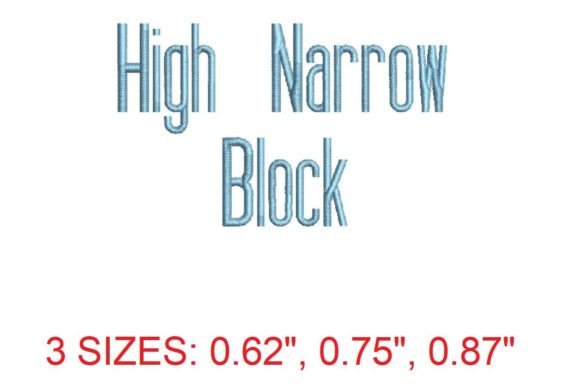
High Narrow Font: Elevating Embroidery with Precision and Style
In the ever-evolving world of embroidery design, the demand for fonts that offer both aesthetic appeal and technical precision has never been higher. Among the latest innovations to capture the attention of professionals and enthusiasts alike is the High Narrow Font. This unique font is not just a design tool—it’s a game-changer for anyone looking to create intricate, high-quality embroidery that stands out in a competitive market.
What Is High Narrow Font?
The High Narrow Font is specifically engineered for use in machine embroidery, offering a refined and elegant appearance that is ideal for monogramming, personalizing accessories, and creating home décor. Its narrow, block-style characters are designed to fit seamlessly into tight spaces while maintaining clarity and legibility. Whether you're working on a custom wedding piece or a boutique collection, this font ensures that every stitch contributes to a professional finish.
Each character in the High Narrow Font is meticulously crafted to provide consistent stitching patterns, making it a favorite among designers who prioritize both form and function. The font comes with detailed stitch information, allowing users to understand how each letter will translate into physical embroidery. This level of detail is essential for achieving the desired visual impact without compromising on quality.
Why Is High Narrow Font Gaining Attention?
As the embroidery industry continues to evolve, consumers are increasingly seeking personalized, high-quality products that reflect their individuality. The High Narrow Font aligns perfectly with this trend by offering a versatile and stylish option for those looking to add a personal touch to their designs. From custom jewelry to embroidered apparel, this font provides the flexibility needed to meet diverse creative demands.
Moreover, the rise of e-commerce and online marketplaces has created new opportunities for entrepreneurs and freelancers to showcase their work. The High Narrow Font enables creators to produce visually appealing designs that can be easily sold or shared across digital platforms. Its clean, modern aesthetic appeals to a broad audience, making it a valuable asset for businesses aiming to stand out in a crowded marketplace.
How Does It Fit Into Industry Trends?
The High Narrow Font is more than just a design tool—it's a reflection of broader industry trends. As technology continues to advance, the integration of digital tools and software in embroidery workflows has become standard practice. The availability of multiple file formats for the High Narrow Font ensures compatibility with a wide range of embroidery machines, making it accessible to both beginners and seasoned professionals.
Additionally, there's a growing emphasis on sustainability and ethical production practices within the creative industries. The High Narrow Font supports this movement by enabling designers to create reusable and adaptable templates that reduce waste and streamline production processes. This makes it an ideal choice for eco-conscious creators looking to balance creativity with responsibility.
Practical Applications and Real-World Examples
One of the most compelling aspects of the High Narrow Font is its versatility. Consider a small business owner specializing in custom embroidery for weddings. By using the High Narrow Font, they can quickly generate elegant monogram designs that resonate with clients seeking a timeless, sophisticated look. These designs can then be printed as digital downloads or used directly on fabric, providing a seamless customer experience.
Another example is a freelance designer working on a line of luxury accessories. The High Narrow Font allows them to create minimalist yet impactful text elements that complement the overall design aesthetic. Whether it's a subtle signature on a handbag or a bold statement on a scarf, the font offers the right balance of detail and simplicity to enhance the final product.
Changing Needs and Expectations
As consumer preferences shift toward more personalized and customizable products, the need for flexible and scalable design solutions has increased. The High Narrow Font meets this demand by offering a consistent, high-quality output that can be adapted to various projects. Its narrow profile also makes it ideal for use on smaller items such as bracelets, keychains, and badges, where space is limited but visual impact is crucial.
Furthermore, the High Narrow Font caters to the growing trend of DIY and craft communities. With its user-friendly design and clear stitch guidelines, it empowers hobbyists and amateur designers to create professional-grade embroidery without requiring advanced technical skills. This accessibility helps foster a more inclusive and engaged creative community.
Conclusion
The High Narrow Font represents a significant advancement in the world of embroidery design. Its combination of elegance, precision, and adaptability makes it an invaluable resource for professionals, entrepreneurs, and enthusiasts alike. As the industry continues to embrace innovation and customization, the High Narrow Font stands out as a reliable and stylish choice that meets the evolving needs of today’s creative landscape.